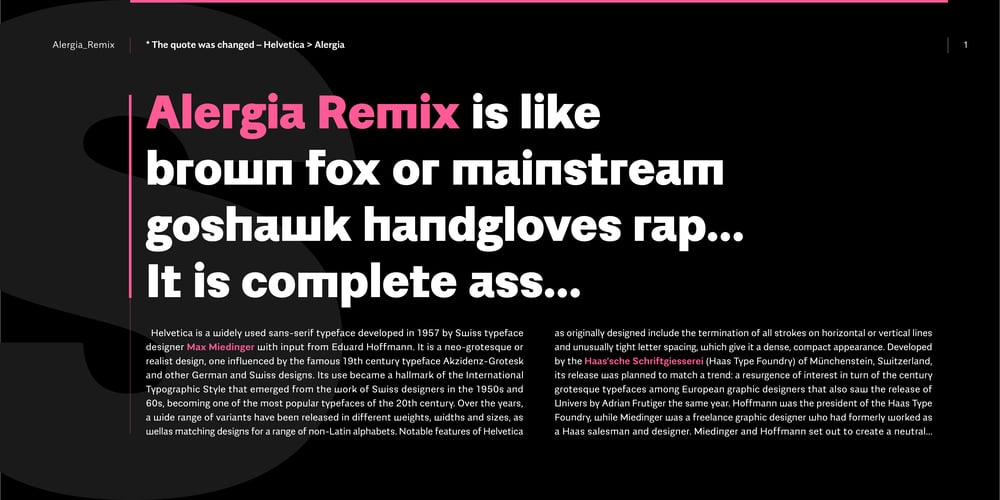
Alergia Remix
Alergia Remix font
Alergia Remix Font Family was designed by Mateusz Machalski and published by Machalski. Alergia Remix contains 10 styles and family package options. Alergia Remix, designed by Mateusz Machalski, is the younger sister of Alergia Grotesk. Remixed styles were made as a hybrid between a linear antiqua and a geometric display typeface. Alergia Remix is characterised by a lot of details, which gives it a strong character. Unpredictable construction in the letters a,s,g,e,m,h etc. in combination with a delicate contrast, makes Alergia Remix a good choice for many display purposes . The whole family has a comprehensive set of characters. In additionton to Latin letters, Alergia Remix also has a full set of characters for Vietnamese, extended Cyrillic (with Abkhasian) and Greek.